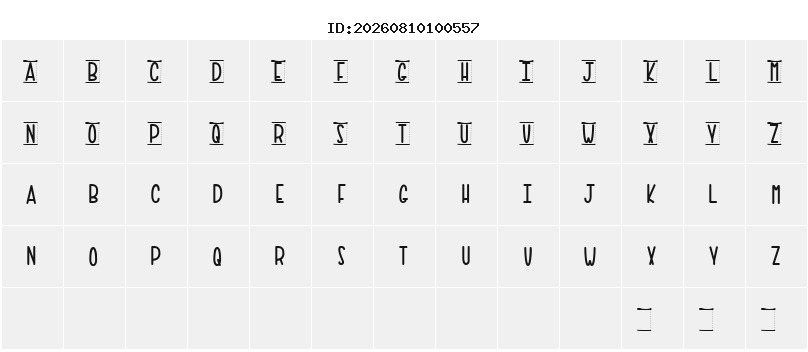
• Font Name: PAPER TOWEL
• Manufacturer: M.K.V
About PAPER TOWEL.ttf
PAPER TOWEL.ttf is a modern, elegant sans-serif font designed for ultimate readability and visual harmony. Perfect for branding, headlines, web design, and print materials.